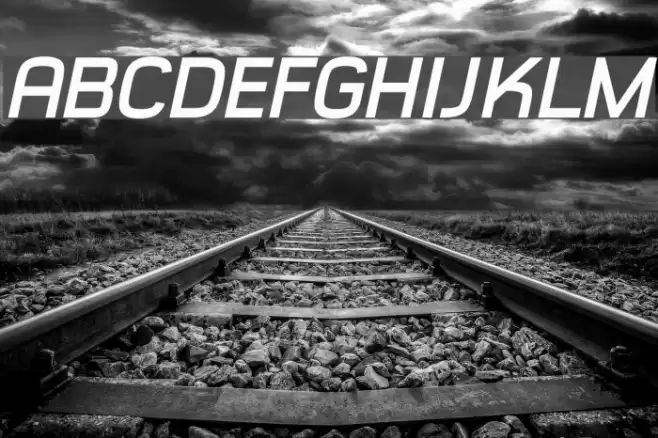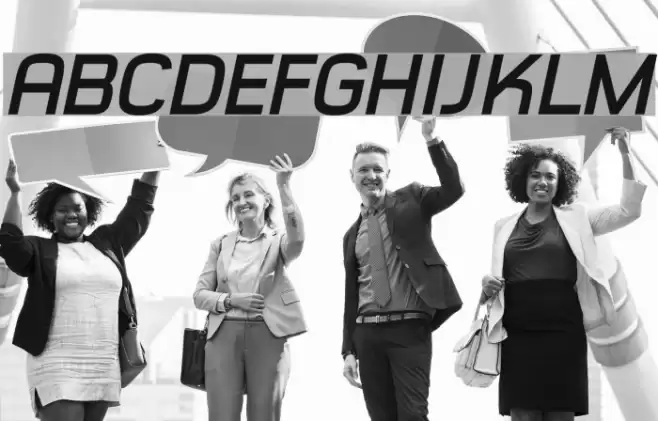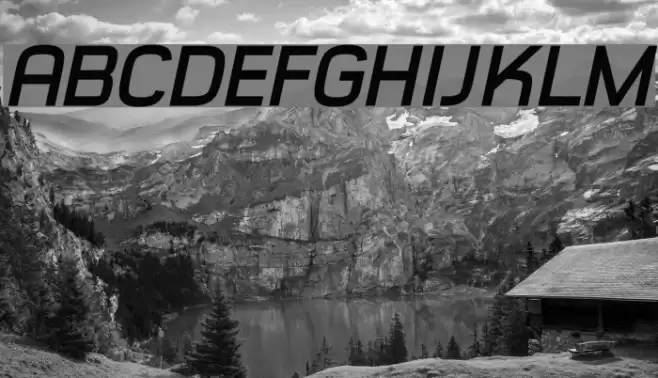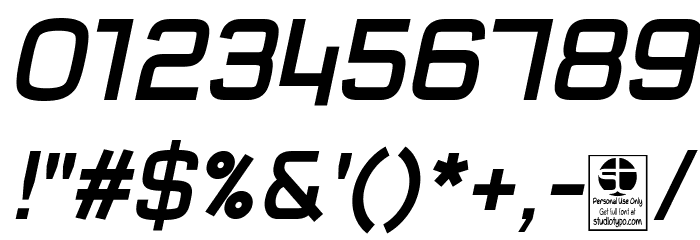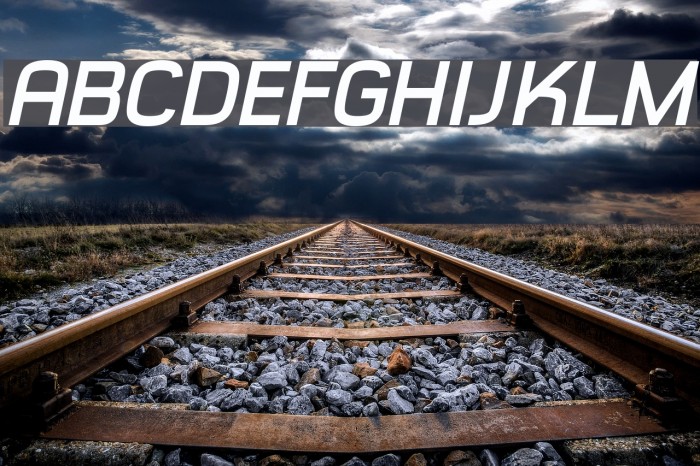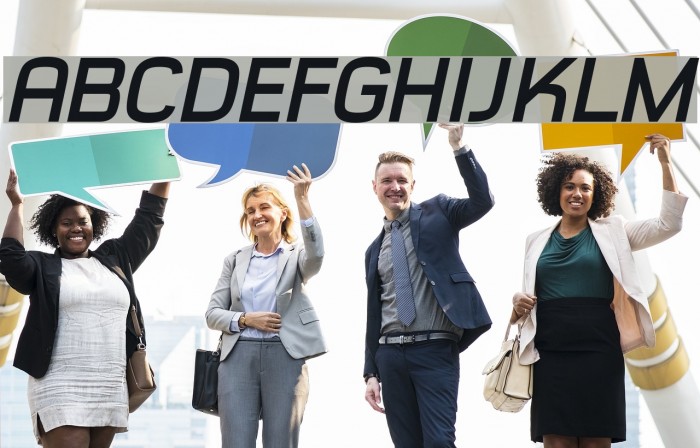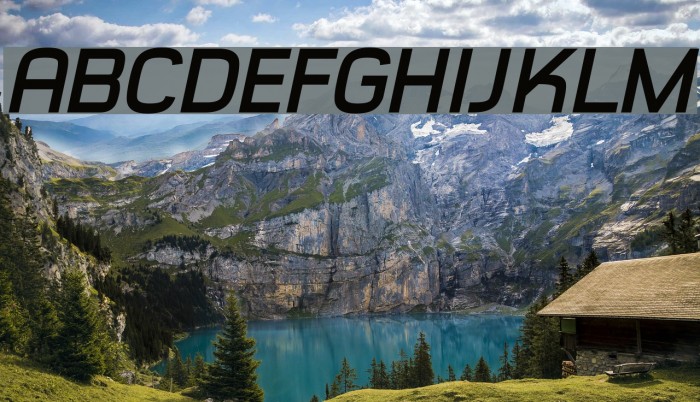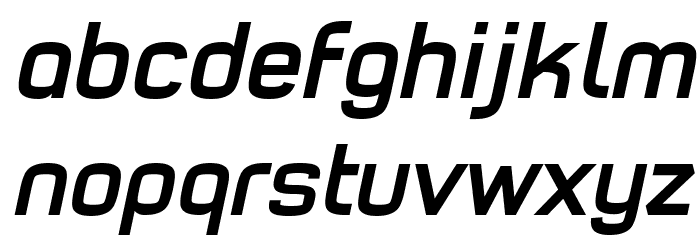
Typo Style Demo Bold Italic Font
Typo Style Demo Bold Italic Description
This font presents a bold and italicized style with a modern and sleek appearance. The characters are slightly slanted, enhancing the dynamic and forward-moving feel. The uppercase and lowercase letters maintain a consistent weight, providing a balanced and cohesive look. The numerals are clear and legible, matching the overall style of the alphabet. Special characters are included, offering versatility for various uses. The font's design is clean and professional, making it suitable for contemporary projects.
A bold, italicized font with a modern, sleek design from Professional fonts.
- Proposed Projects: Ideal for branding, advertising, and digital media projects where a modern and dynamic look is desired.
- Use Case: Headlines, Logos, Digital Media